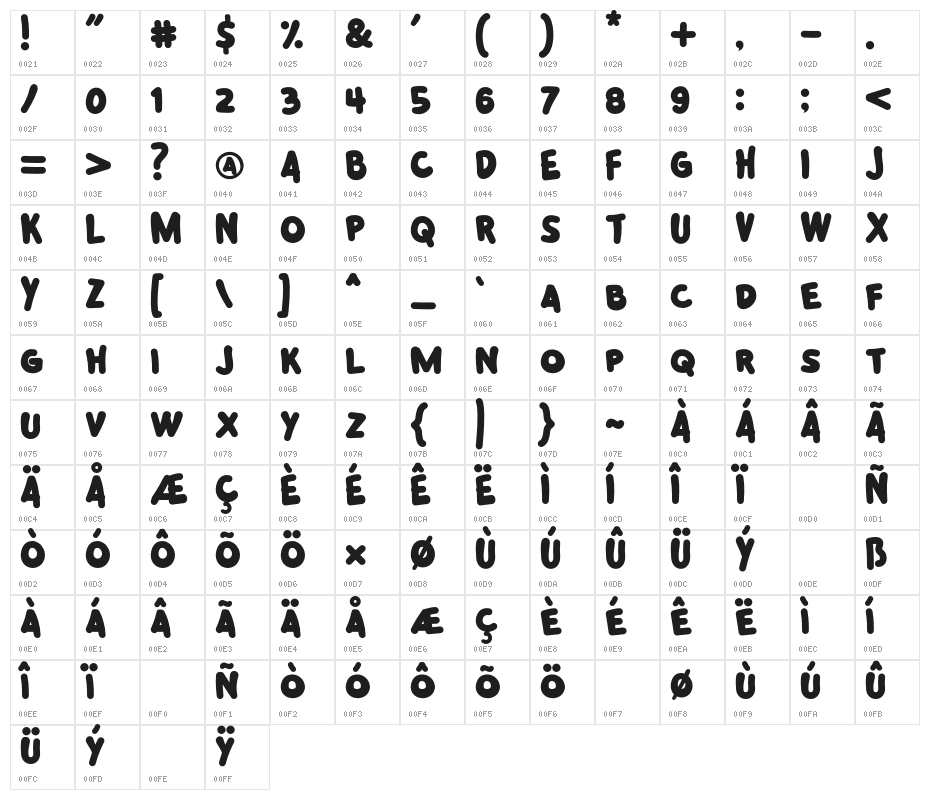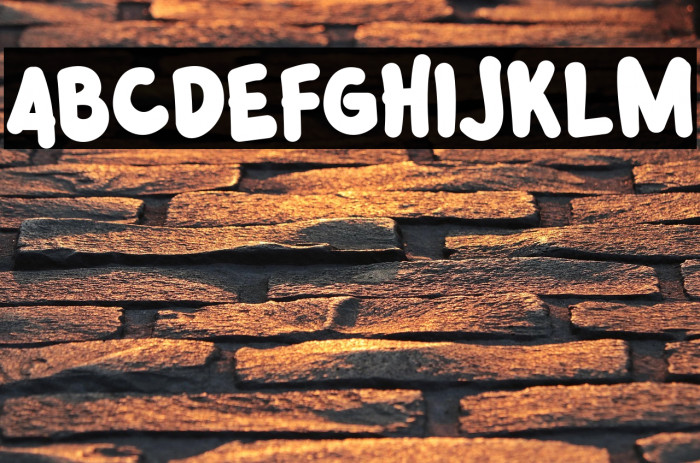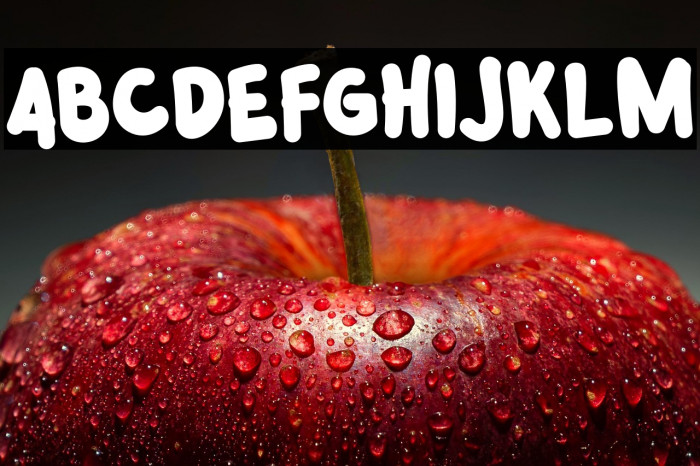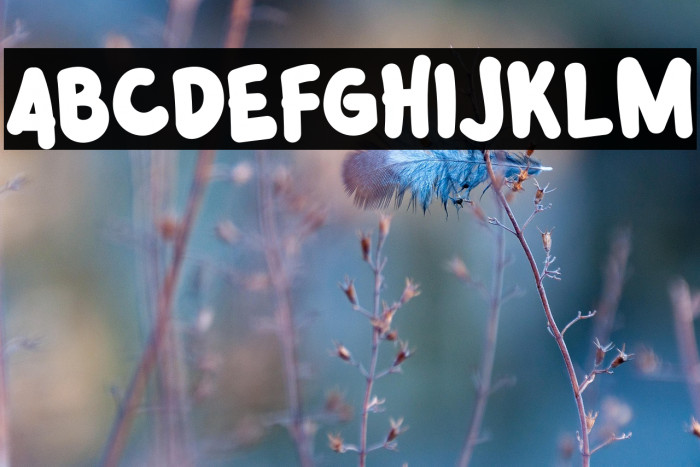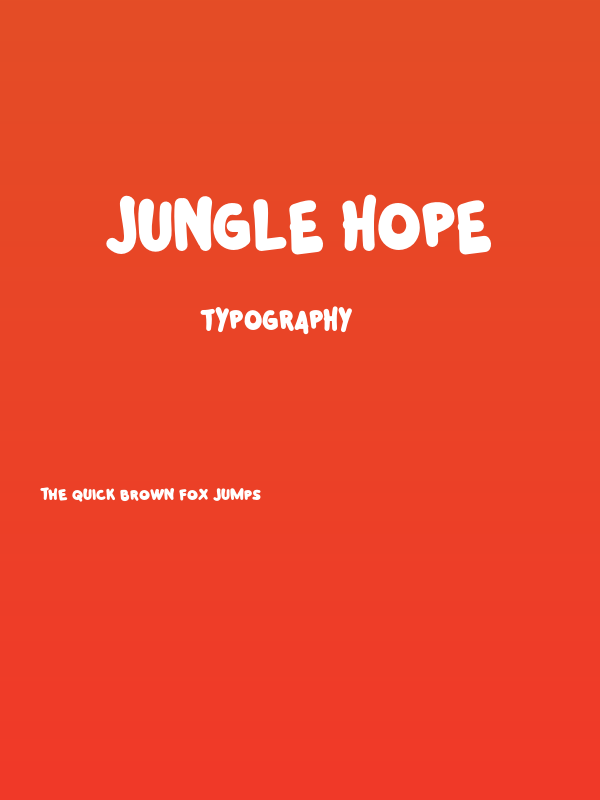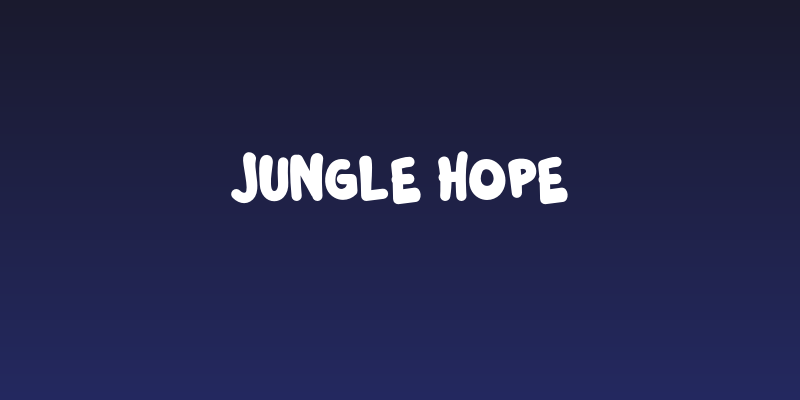
Jungle Hope Font
Jungle Hope Description
This playful and bold font features thick, rounded letters that convey a sense of fun and energy. The characters are uniformly bold, with a slightly irregular shape that adds a whimsical touch. The font includes both uppercase and lowercase letters, numbers, and a variety of special characters. Its design is reminiscent of hand-drawn lettering, making it ideal for projects that require a friendly and approachable aesthetic. The consistent stroke weight and rounded edges contribute to its overall cohesive appearance.
| Proposed Projects | Ideal for children's books, playful branding, posters, and social media graphics. |